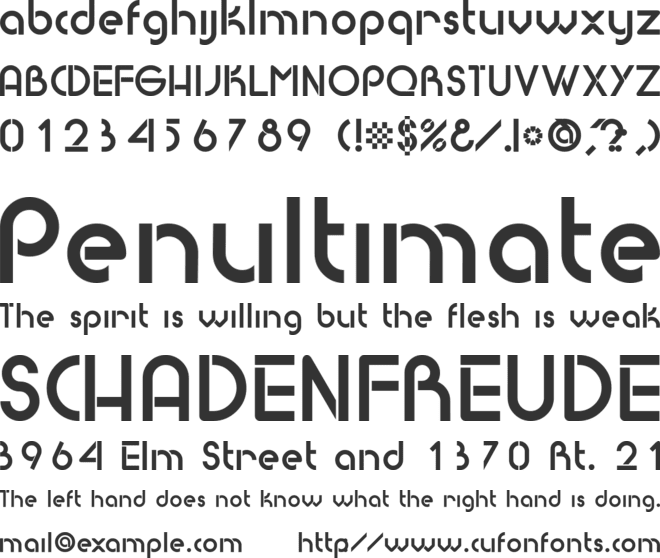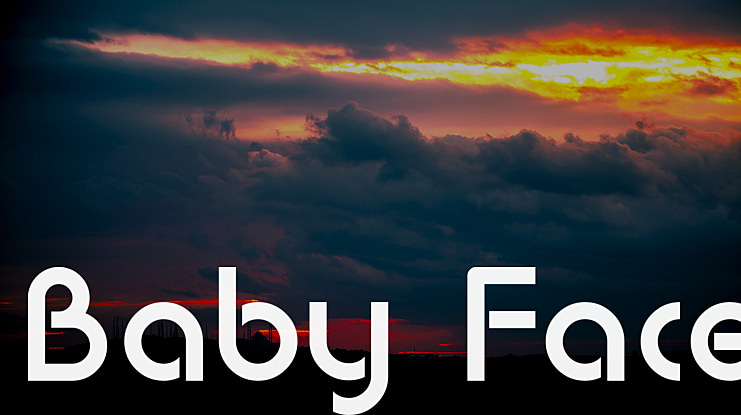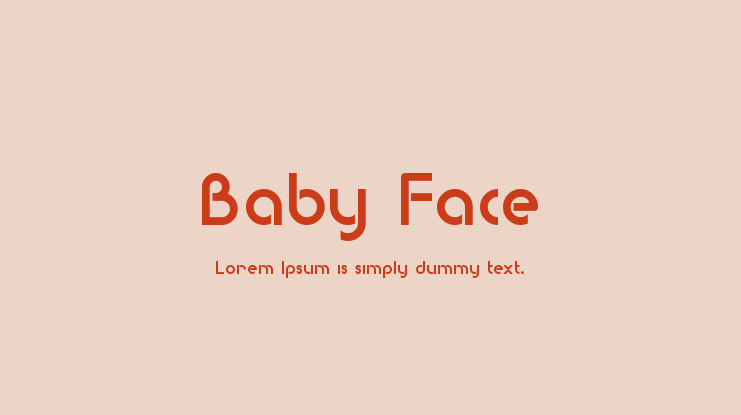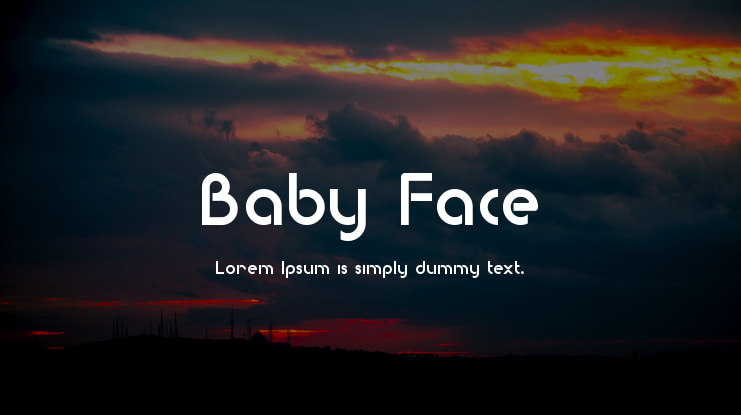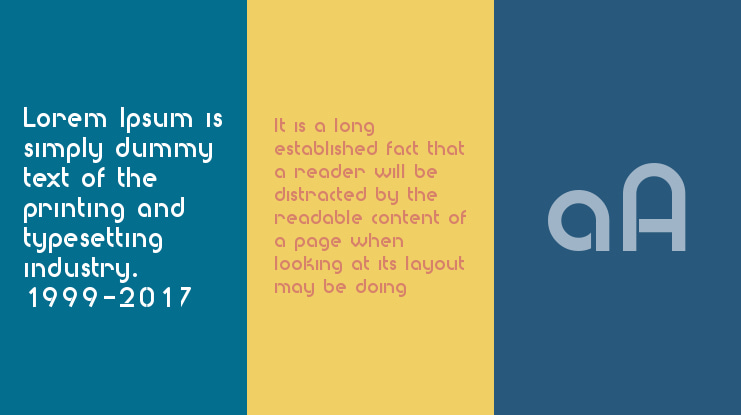
Baby Face Font
The Baby Face typeface is influenced by the 1925 work of Herbert Bayer, a designer who was part of the Bauhaus movement in Germany. Baby Face differs a lot from other "Bauhaus" fonts, because it has been developped from memory, rather than from original prints. I was surprised when I had finished the font, and compared it to the actual original design, by the similarities, as well as the real differences.